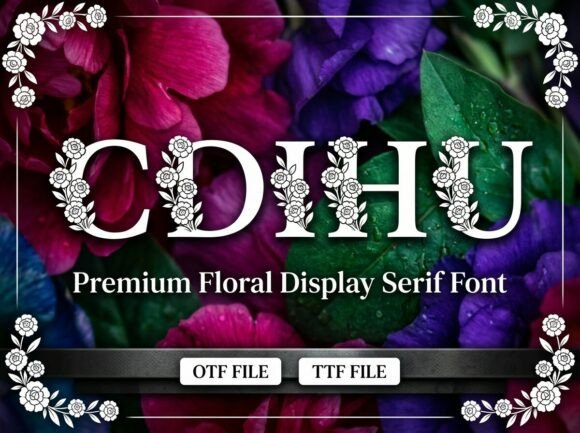
Introducing Coihu Font: Timeless Elegance for Your Designs
Are you looking for a font that exudes sophistication and elegance? Look no further than Coihu, a stunning display serif that captures the essence of a “botanical-and-bespoke” soul. This beautiful font is perfect for designers and crafters who want to add a touch of luxury to their creations.
The Inspiration Behind Coihu
Coihu is inspired by the classic Victorian garden aesthetic, with its high-contrast letterforms and ornate details. The font features rhythmic, hand-illustrated rose vines that climb each character, giving it a unique and bespoke feel. This distinctive feature bridges the gap between traditional and modern design, making Coihu the perfect choice for luxury branding and high-end projects.
Key Features of Coihu Font
- Classic Display Serif: Coihu is a beautifully crafted display serif font, perfect for headlines, titles, and statements.
- High-Contrast Letterforms: The font features high-contrast letterforms, which give it a sense of elegance and sophistication.
- Hand-Illustrated Rose Vines: Each character is uniquely decorated with hand-illustrated rose vines, adding a touch of whimsy and romance.
- Medium Structural Weight: Coihu has a medium structural weight, making it perfect for a variety of applications, from logos to social media headers.
- Ornamental Personality: The font’s ornamental personality makes it perfect for designs that require a touch of luxury and sophistication.
Use Cases for Coihu Font
Coihu is a versatile font that can be used in a variety of applications, including:
- Independent Floral Boutique Identities: Coihu is perfect for creating beautiful and elegant logos for floral boutiques.
- Boutique Organic Skincare Logos: The font’s natural and luxurious feel makes it ideal for skincare brands that want to convey a sense of high-end quality.
- Premium Event Stationery: Coihu is perfect for creating elegant and sophisticated stationery for weddings, galas, and other high-end events.
- High-Impact Social Media Headers: The font’s bold and ornamental personality makes it perfect for creating eye-catching social media headers that demand attention.
Why Choose Coihu Font?
Coihu is a unique and elegant font that offers a range of benefits for designers and crafters. Here are just a few reasons why you should choose Coihu for your next project:
- Timeless Elegance: Coihu’s classic design ensures that your creations will stand the test of time, looking beautiful and elegant for years to come.
- Versatility: The font’s versatility makes it perfect for a wide range of applications, from logos to social media headers.
- High-Quality Design: Coihu is a high-quality font that is designed to deliver exceptional results, with crisp and clear lines that look beautiful on any device.
Coihu is a stunning display serif font that is perfect for designers and crafters who want to add a touch of elegance and sophistication to their creations. With its classic design, high-contrast letterforms, and hand-illustrated rose vines, Coihu is the premier choice for luxury branding and high-end projects. Whether you’re creating a logo, social media header, or premium event stationery, Coihu is the perfect font for your next project.